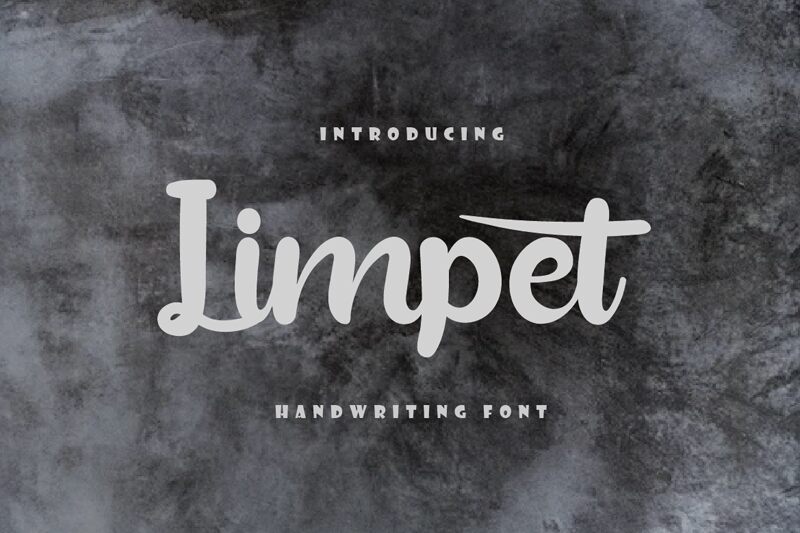
Limpet
Limpet font is a bold, smooth and flexible typeface designed by Amourdesign. Embrace its breathtaking style and use it to create gorgeous wedding invitations, beautiful stationery prints, eye-catching social media posts and much more!